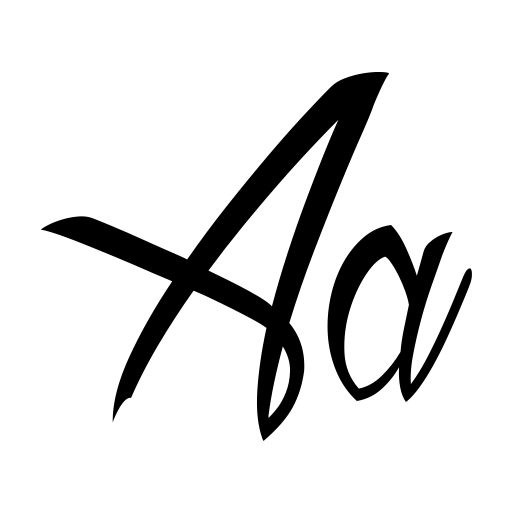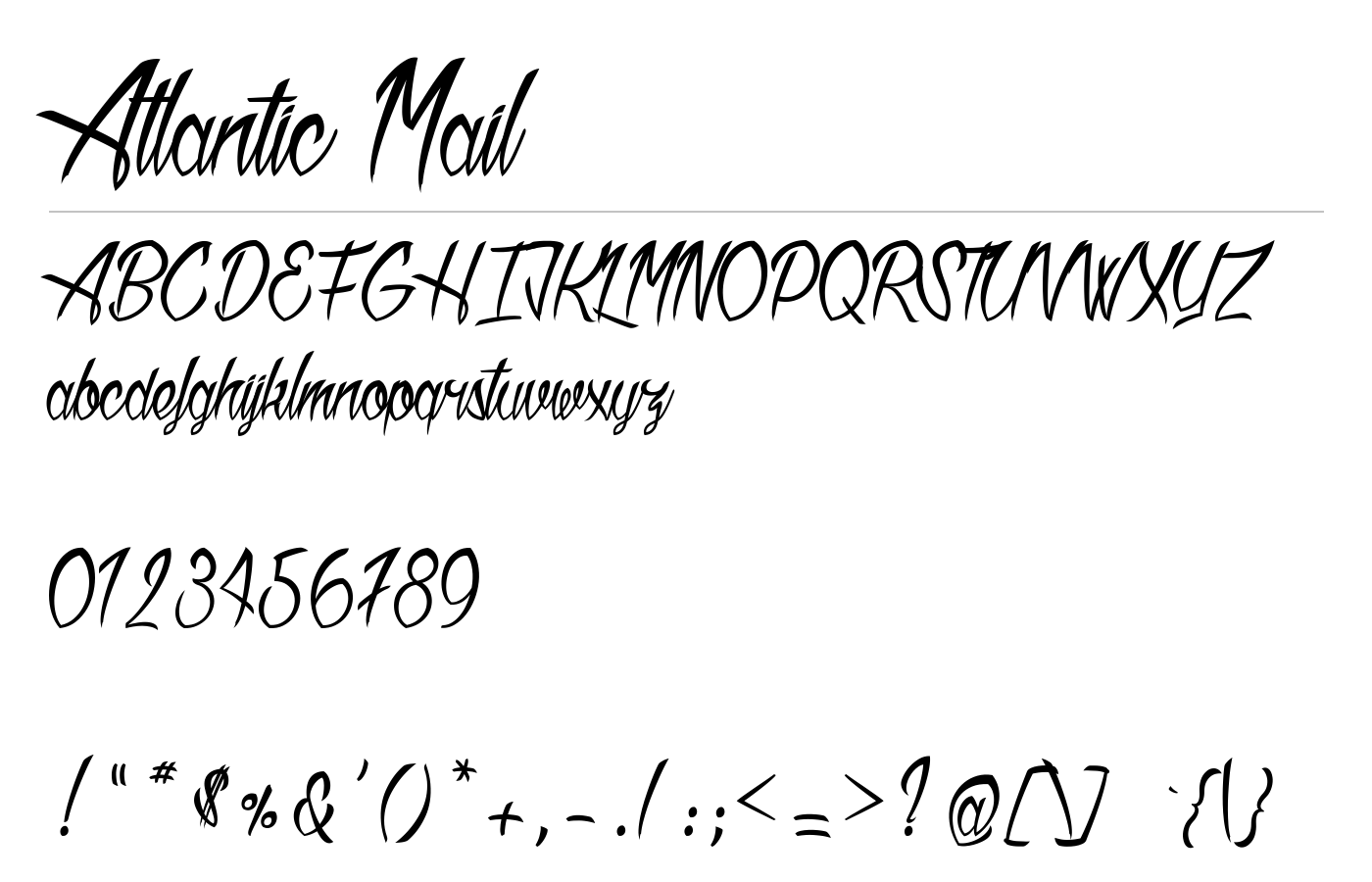
Atlantic Mail is a lively, handwritten script font with a bold, energetic style that combines a strong, upright stance with artistic brush-like strokes. Its tall, narrow letterforms and varied stroke widths give it a dynamic, personal touch perfect for creative branding, eye-catching headlines, and expressive designs seeking a modern yet elegant flair. This font shines in contexts where a sense of individuality and flair is desired, such as fashion, invitations, or trendy editorial work.
Atlantic Mail Font
About Atlantic Mail Font
| Font family | Atlantic Mail Font |
| Designer | dcoxy Medina Gregory |